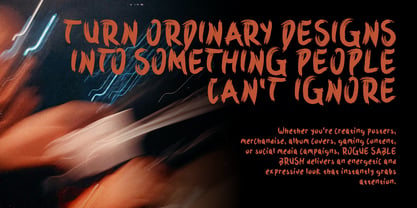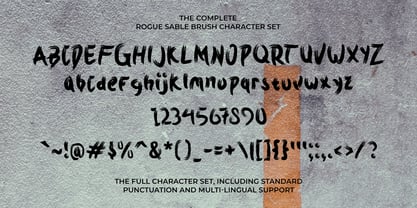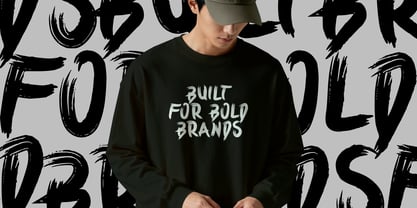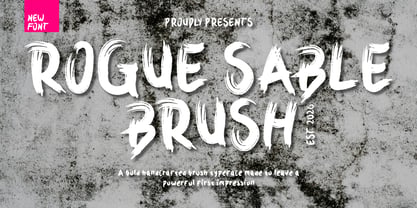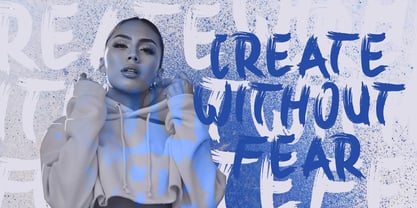
Rogue Sable Brush
by Mei Suseno
The Rogue Sable Brush Font Family was designed by Wahyu Eka Prasetya, Mei Suseno and published by Mei Suseno. Rogue Sable Brush contains 2 styles and family package options. More about this family
Rogue Sable Brush is a bold handcrafted brush typeface designed to create a strong and unforgettable visual impact. Featuring expressive strokes, rough edges, and dynamic brush textures, this font brings an energetic, rebellious, and authentic character to any design. Its hand-painted appearance makes it perfect for posters, branding, album covers, apparel, social media graphics, packaging, and creative projects that demand attention. Rogue Sable Brush delivers a raw artistic feel while maintaining excellent readability, making it ideal for both headlines and standout display typography
Designers: Wahyu Eka Prasetya, Mei Suseno
Foundry: Mei Suseno